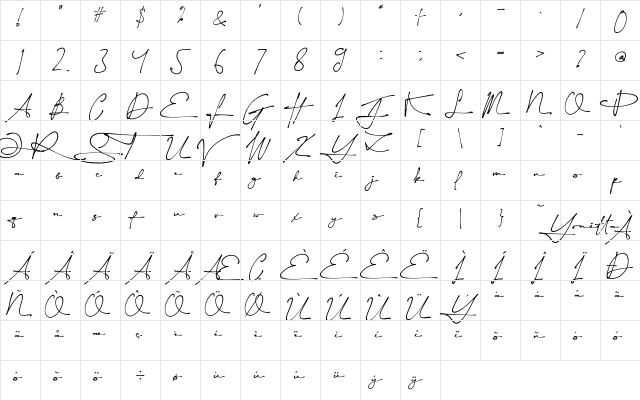
Yonitta Signature Regular
| Designer | Designed by Mozyen Studio |
Design Context for Yonitta Signature Typeface
Yonitta Signature is a composed and adaptable typeface that performs quietly and consistently across a wide range of design contexts.